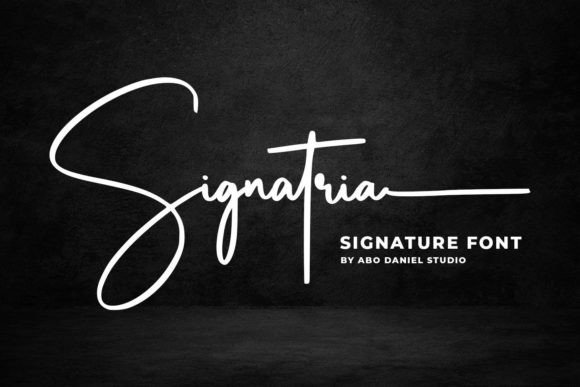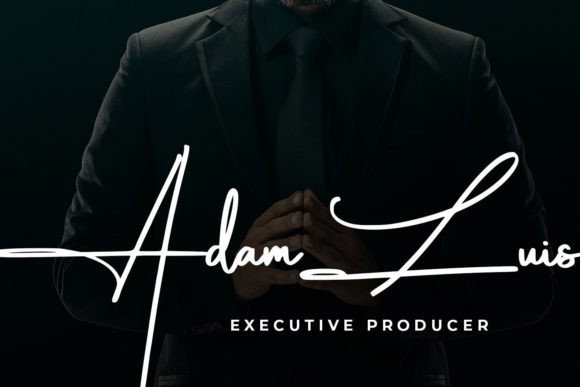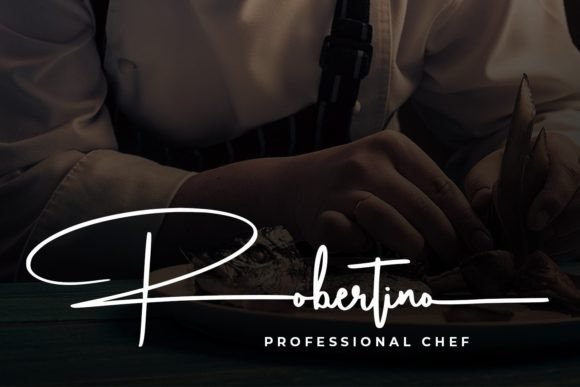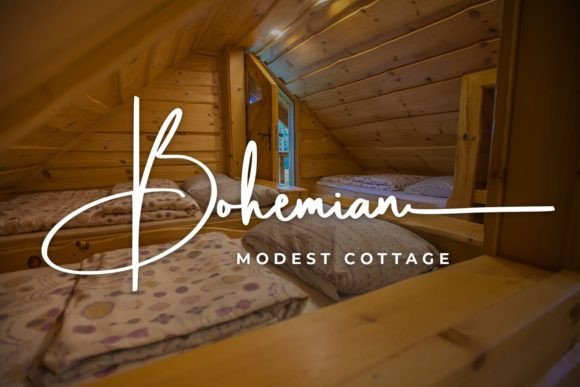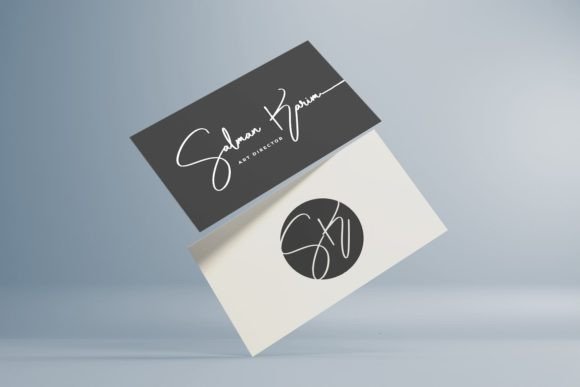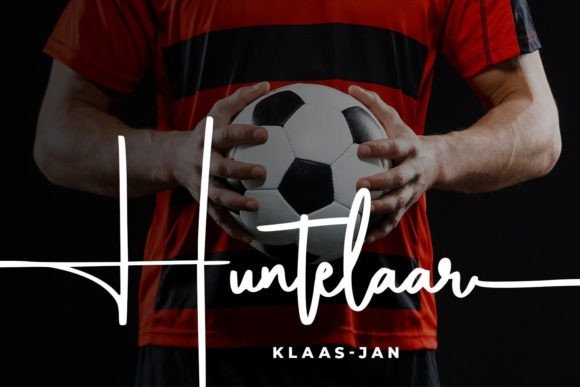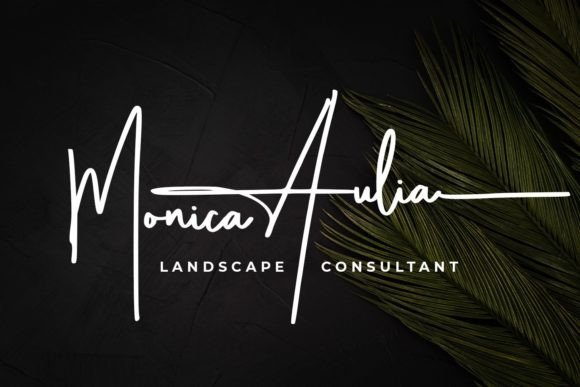
Signatria Font
About Signatria Font
Signatria is not just a signature font; it’s a unique blend of readability and handwritten charm. Its simplicity and easy readability make it a perfect choice for a wide array of applications, from greeting cards to magazines, headers, and social media posts.
One of the standout features of Signatria is its thoughtful design. The font includes alternates and two sets of lowercase, uppercase, punctuation, and numbers, providing designers with a versatile toolkit to create visually appealing and cohesive designs. This flexibility ensures that your creative options are virtually limitless, allowing you to customize and personalize your projects according to your vision.
In the realm of greeting cards, Signatria adds a touch of warmth and authenticity. Whether used for heartfelt messages, invitations, or celebratory notes, this font captures the essence of a handwritten signature, imbuing the cards with a personal and genuine feel. Its smooth flow and elegant strokes make it a favorite among card designers who seek to create connections through their creations.
For magazines and editorial designs, Signatria effortlessly bridges the gap between professionalism and creativity. Its clean lines and legibility make it ideal for various layouts, ensuring that the content remains engaging and easy to digest. Whether used for headlines, subheadings, or pull quotes, this font adds a touch of sophistication while maintaining a modern and approachable vibe.
In the realm of digital communication, Signatria shines as a captivating header font for websites and social media platforms. Its distinctive handwritten style captures attention, making it ideal for blog headers, social media posts, and online banners. By using Signatria, digital content creators can infuse their online presence with personality and charm, effectively engaging their audience.
The font’s PUA encoding is a valuable asset for designers, as it grants easy access to a wealth of amazing glyphs and ligatures. This accessibility ensures a seamless design process, allowing designers to experiment with different letterforms and combinations effortlessly. Signatria’s versatility, coupled with its user-friendly features, makes it a must-have font for any design project that requires a signature touch.
In summary, Signatria stands as a testament to the perfect balance between readability and handwritten allure. Its adaptability, combined with the accessibility of its glyphs and ligatures, makes it a go-to choice for designers looking to create visually stunning and highly engaging projects across various mediums. With Signatria, every design can bear the mark of elegance and authenticity, leaving a lasting impression on viewers.